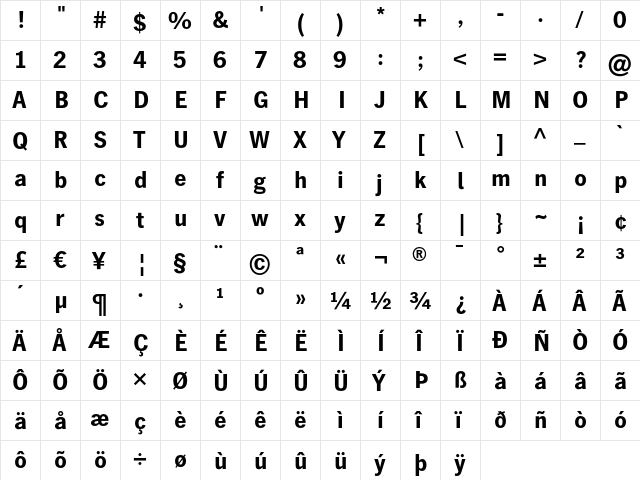
HeidelbergGothicTab Bold
Design Context for HeidelbergGothicTab Typeface
HeidelbergGothicTab takes a clean, functional approach — its unadorned letterforms prioritise legibility and work reliably across screen and print environments. The heavy weight commands attention and anchors typographic hierarchies.
A strong choice for UI design, app interfaces, bold signage, and corporate brand systems.
Font Pairing: Use HeidelbergGothicTab for headlines alongside a lighter-weight sans or serif for body copy to establish clear visual hierarchy.
Pro Tip: Pair HeidelbergGothicTab with a display or serif font for headlines — its neutral character makes it an excellent supporting player in complex typographic systems.